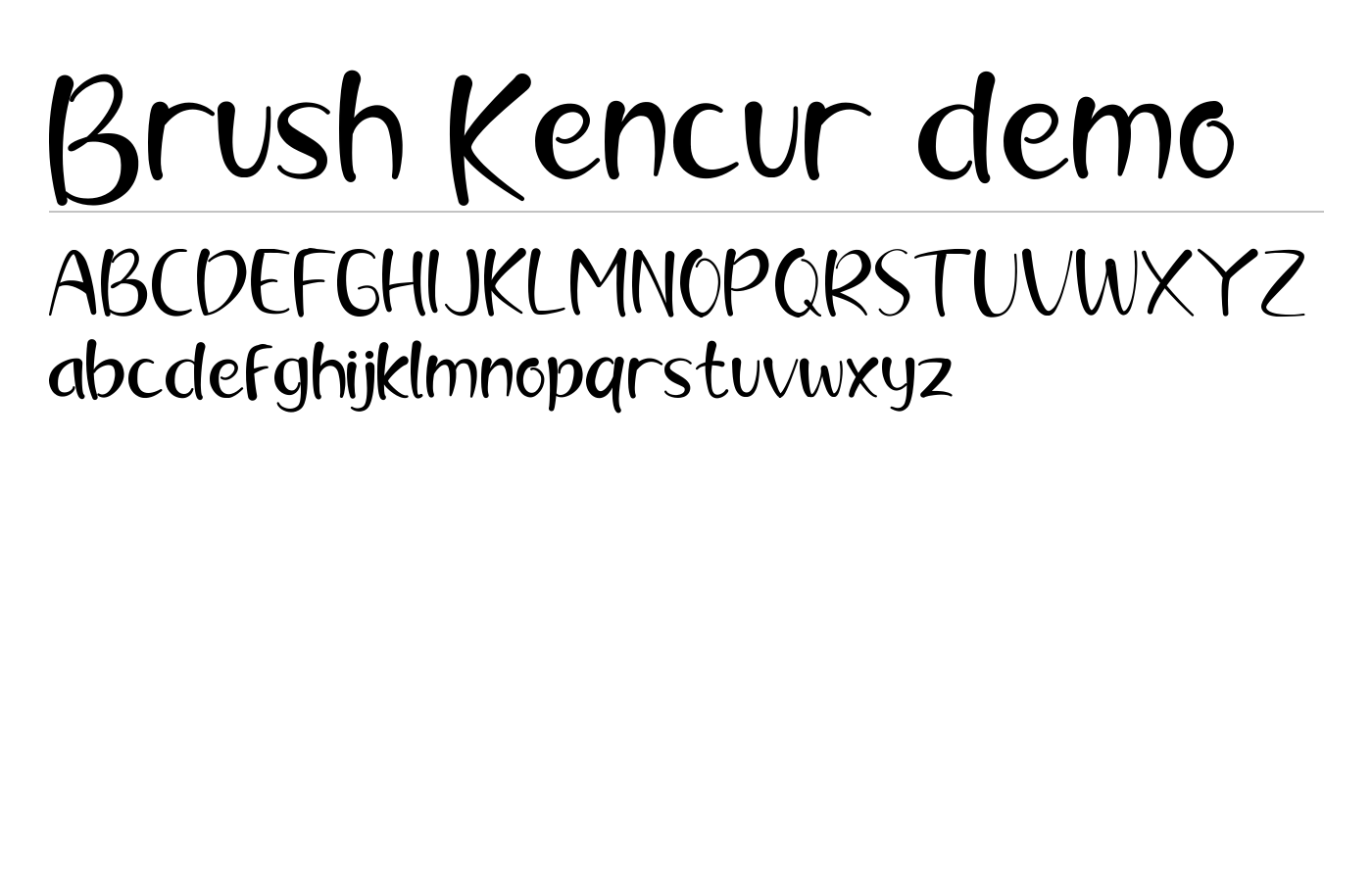
Brush Kencur demo is a casual, hand-drawn script font with a playful and friendly personality. Its smooth, rounded strokes and varying line thickness create an approachable, organic feel perfect for creative projects, informal branding, and personal communication. This font works well for logos, packaging, and social media where a warm, handwritten touch adds charm and individuality.
Brush Kencur demo Font
About Brush Kencur demo Font